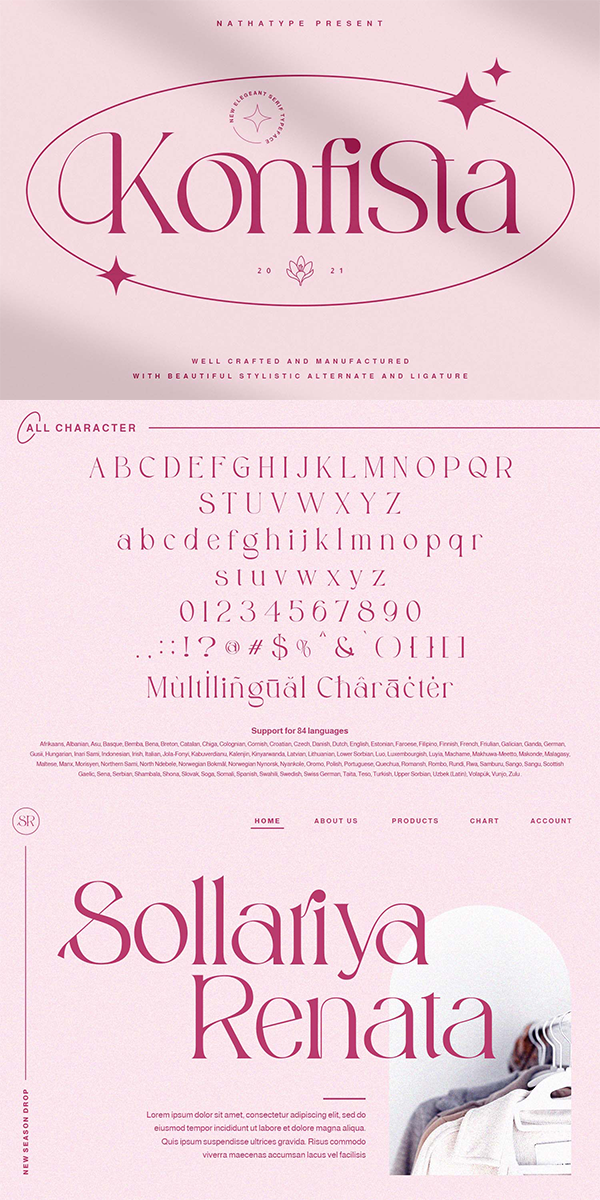
Konfista Font
About Konfista
Konfitsta is one of the most stylish fonts designed to create the perfect contrast between your headings and body copy. Bring your branding to life and add a touch of modernity and style with Konfista. It is ideally applicable for your social media banners, posts, ads, printed quotes, t-shirt designs, packagings, or even modern texts overlaying any background images.